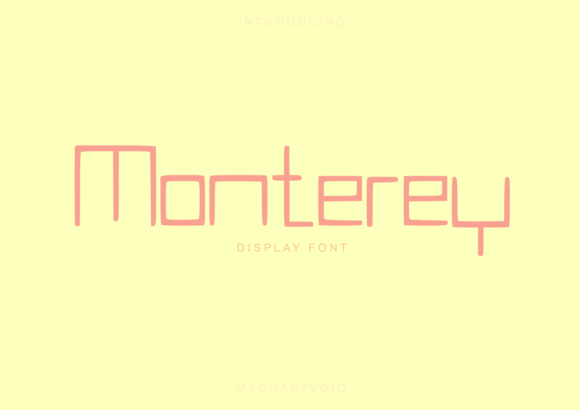
Welcome to Monterey, the font that empowers you to craft a brand that's bold, unforgettable, and speaks volumes about your unique style. Every stroke, every curve, and every letterform in this display font is meticulously designed to elevate your words into a visual symphony that dances before the eyes.
Monterey's simplicity is its superpower. It doesn't rely on excessive ornamentation or distracting embellishments. Instead, it lets the raw power of its clean lines and balanced proportions take center stage. This makes it the perfect choice for those seeking a font that's both visually captivating and effortlessly versatile.
Whether you're crafting a captivating logo, designing a website that sizzles with personality, or creating social media content that demands attention, Monterey is your go-to font. Its inherent versatility empowers you to effortlessly adapt it to any project, ensuring that your message shines through with unwavering clarity and impact.
But Monterey is more than just a collection of letters. It's a gateway to a world where your brand's identity takes flight. Each character is imbued with a touch of magic, ready to transform your words into a beacon of creativity that draws the eye and captivates the imagination.
Monterey isn't just a font; it's an invitation to let your creativity run wild, to push the boundaries of design, and to create a brand that truly resonates with your audience. It's a font that empowers you to make a statement, to stand out from the crowd, and to leave an unforgettable impression on the world.